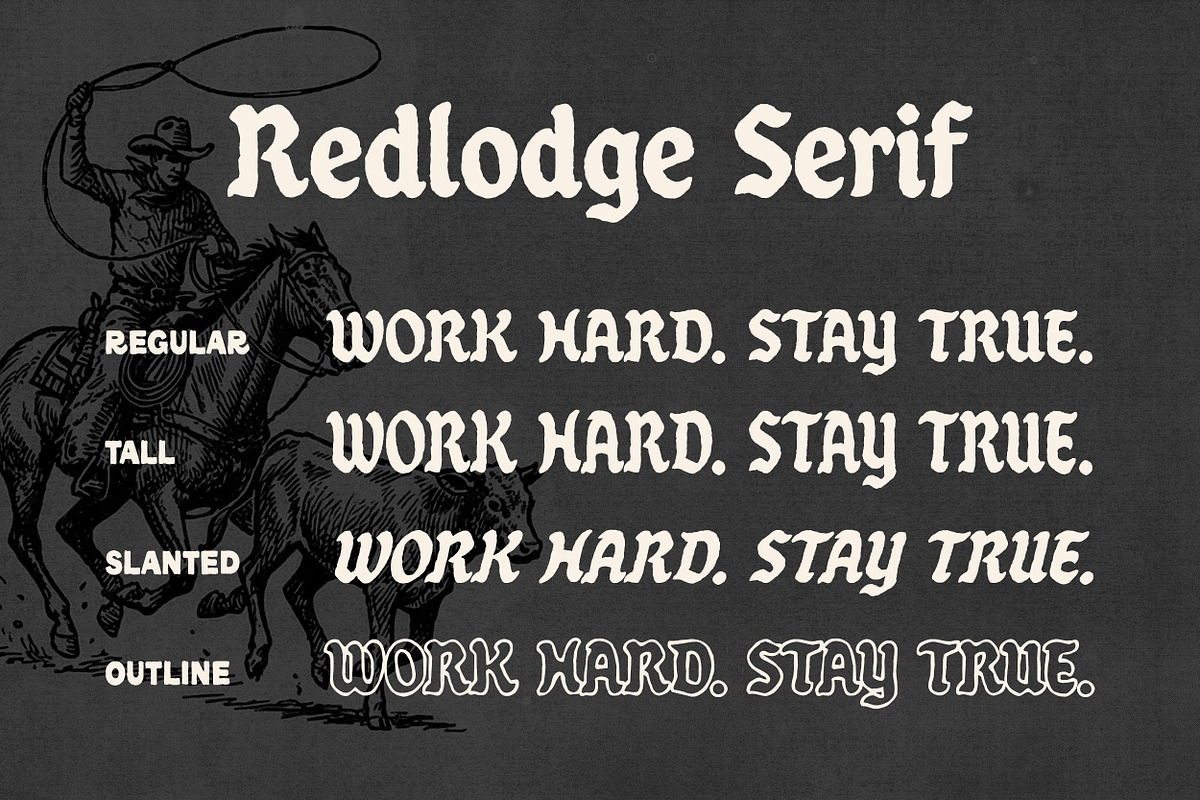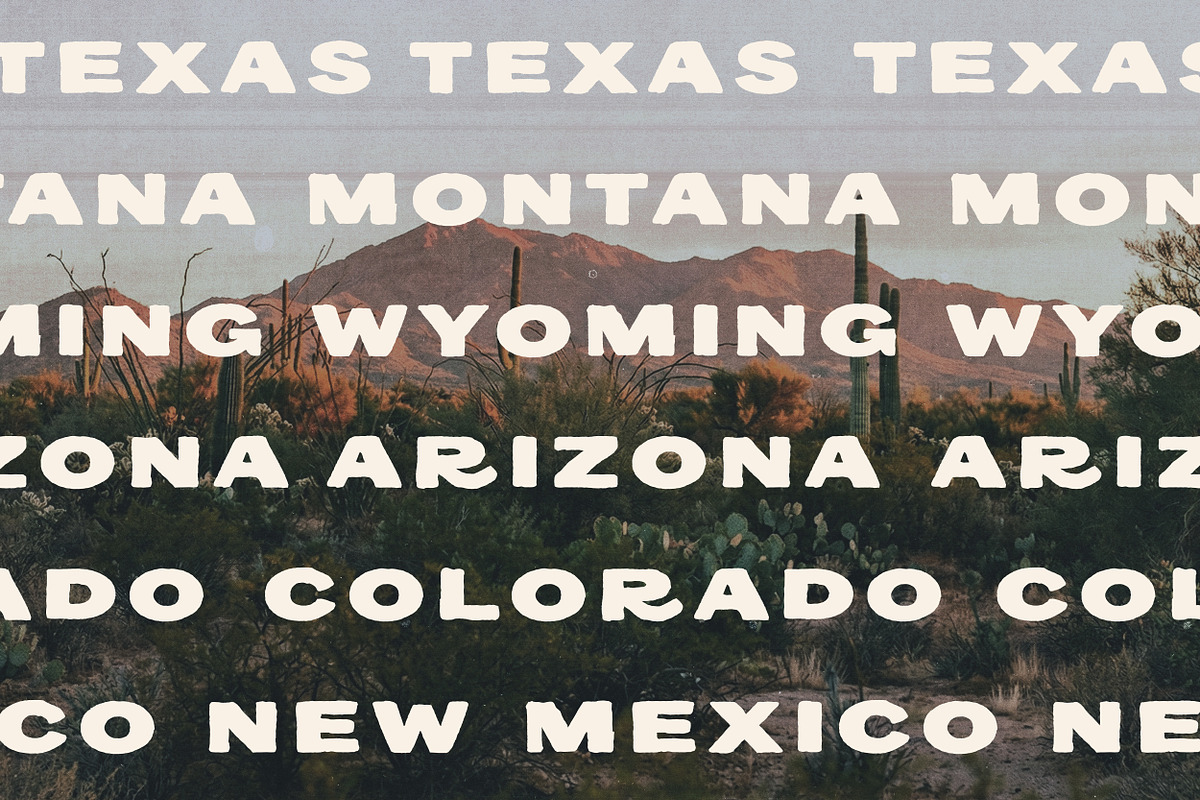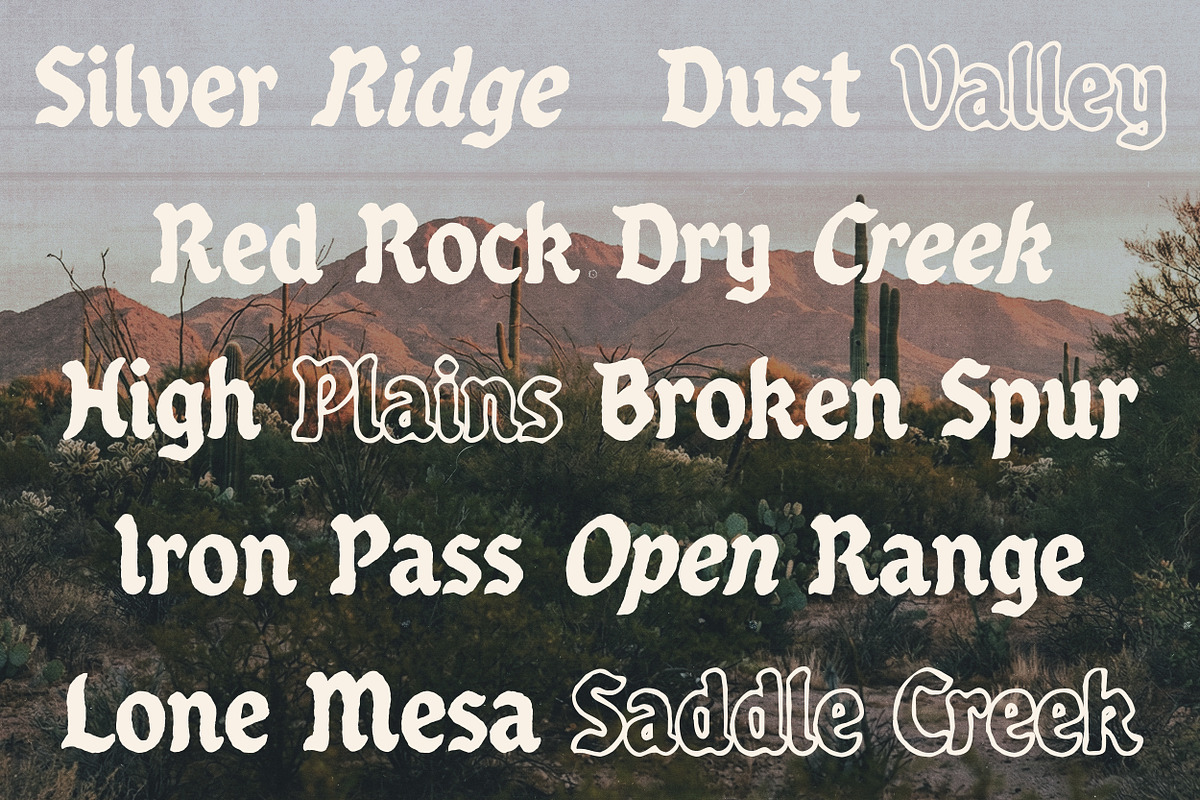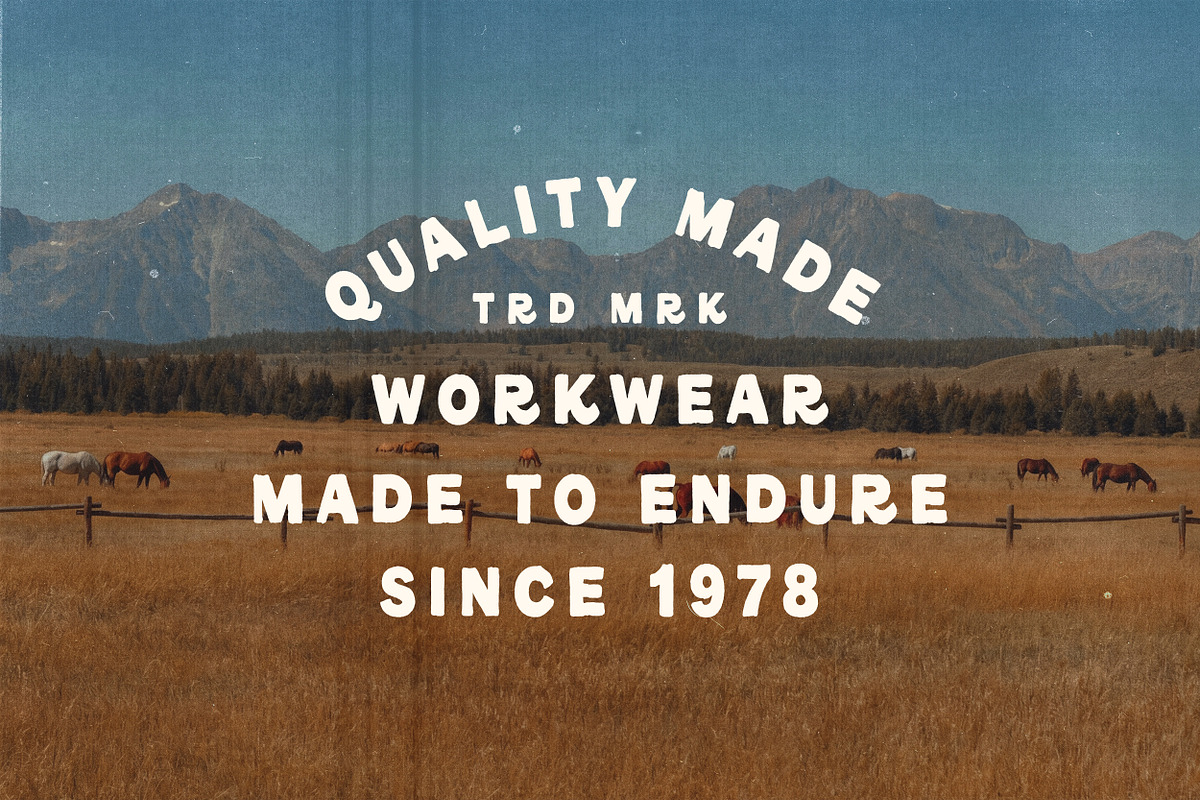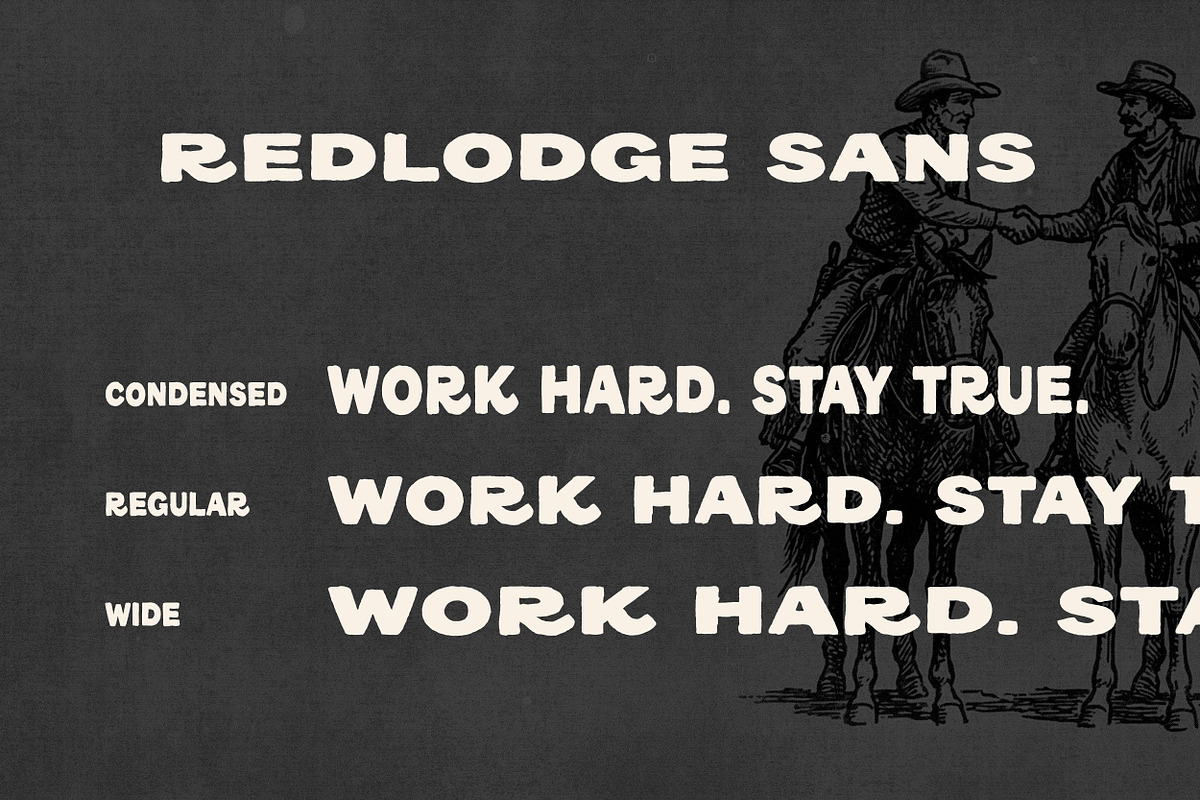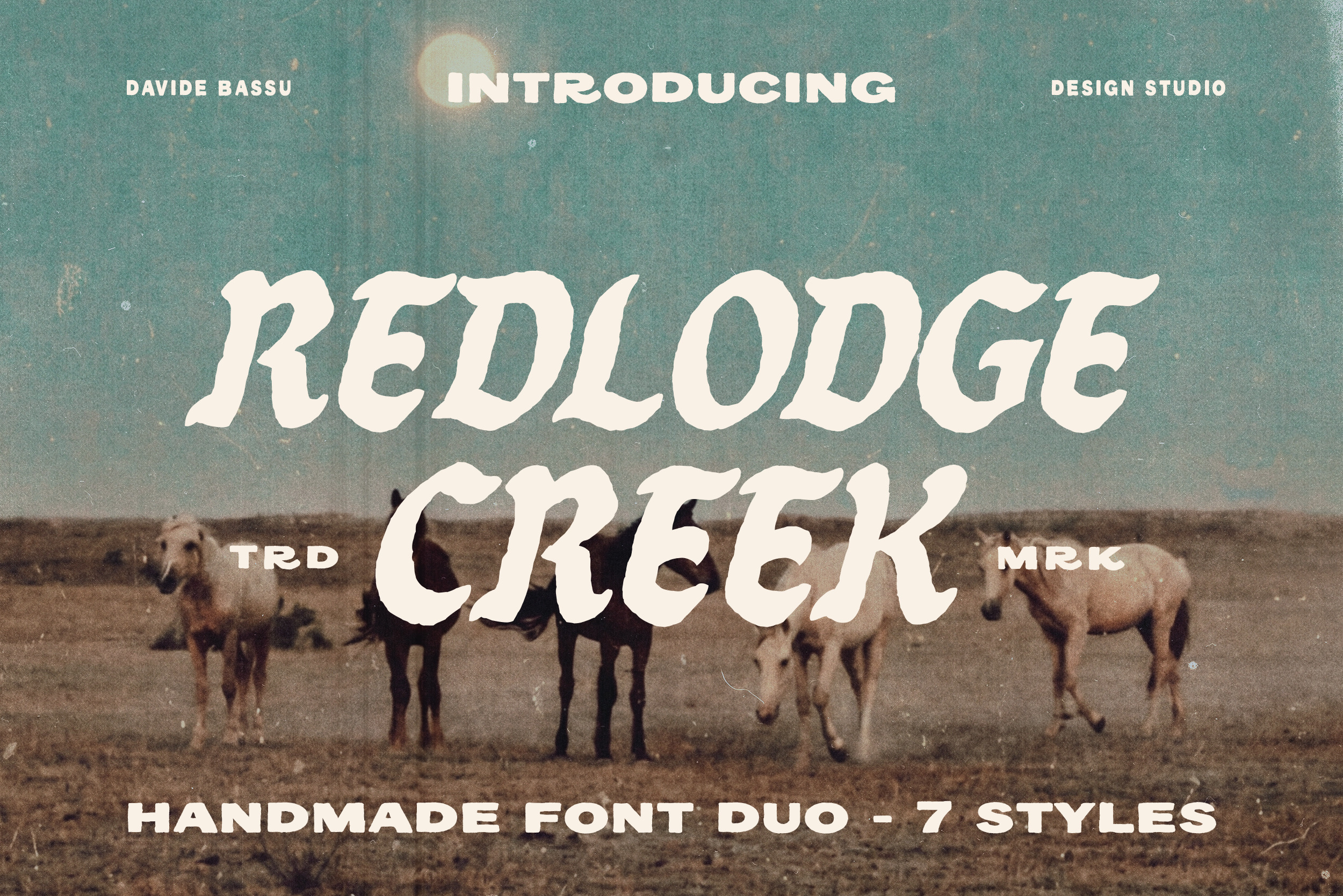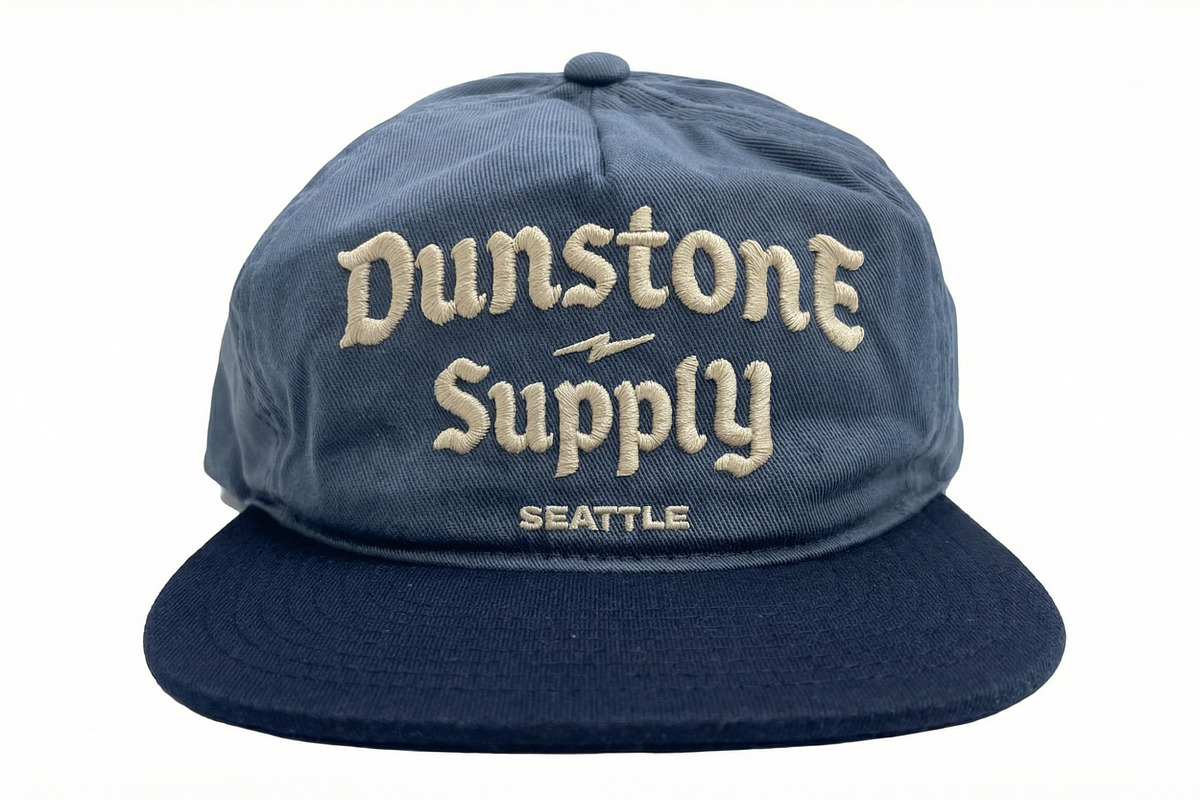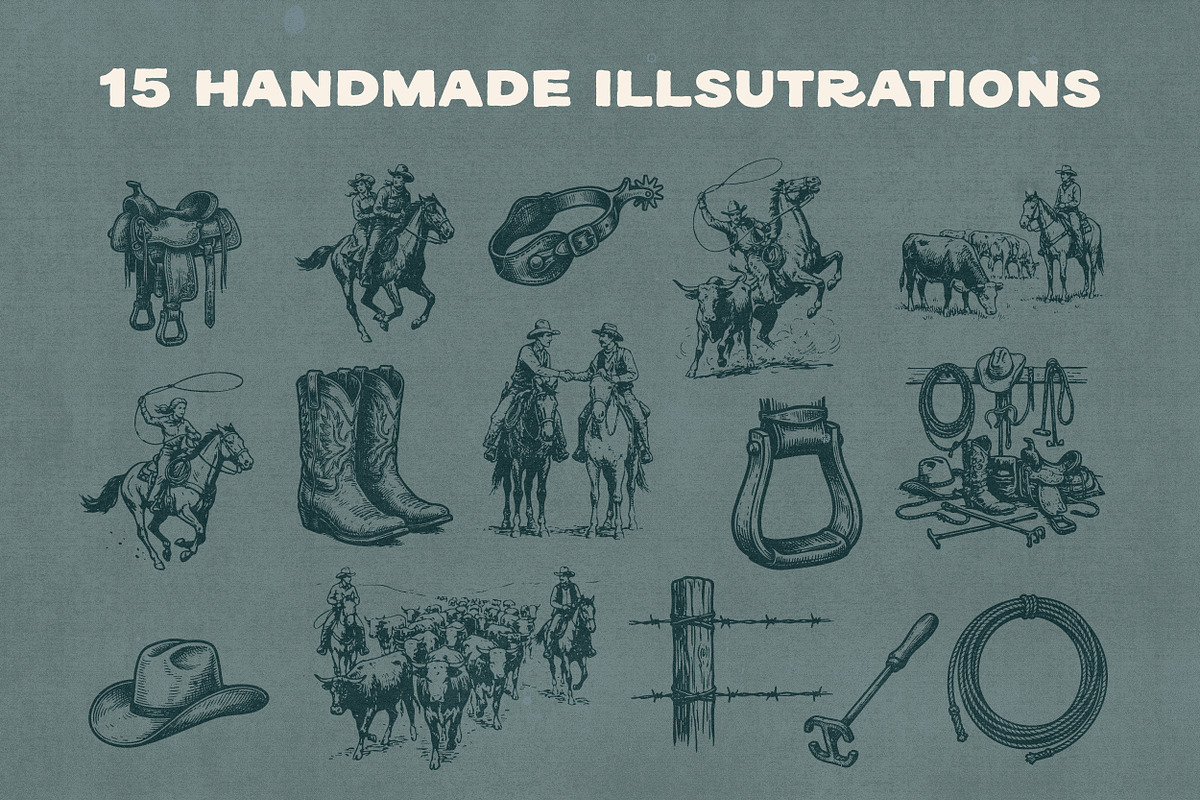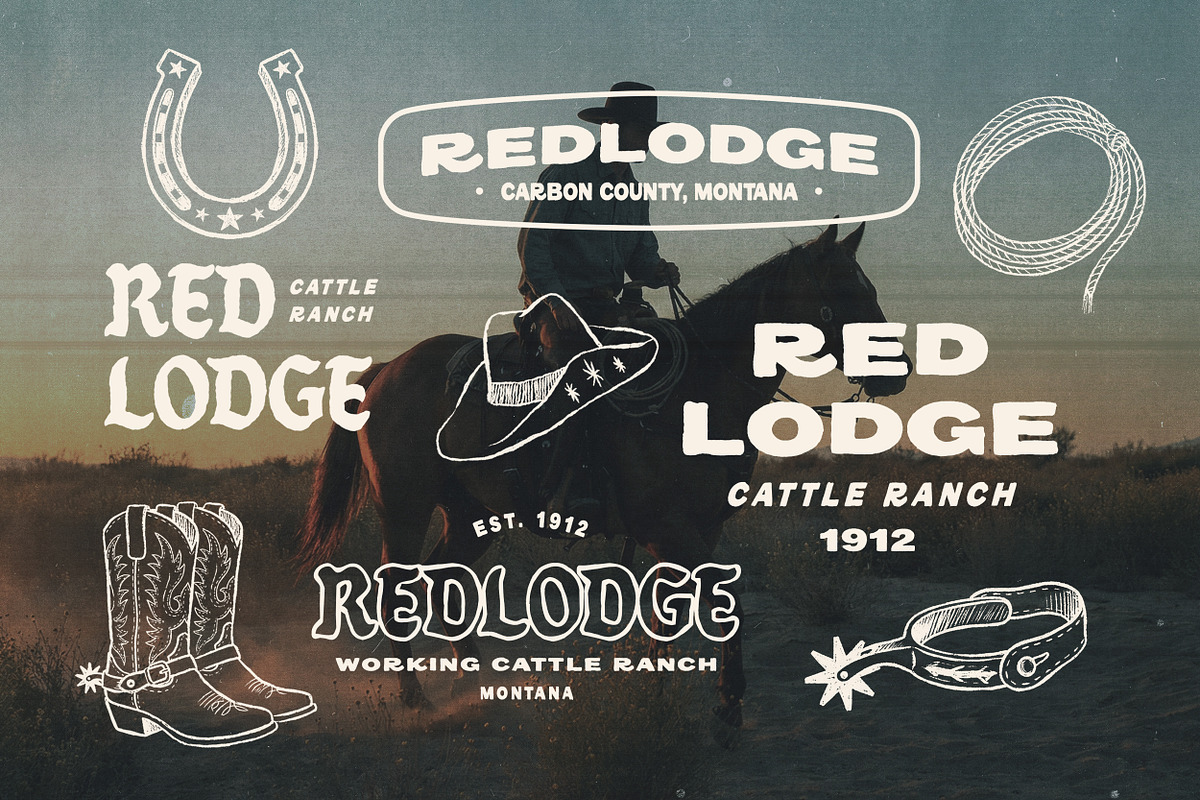
REDLODGE FONT DUO + Extra
REDLODGE FONT DUO is a handmade font duo inspired by authentic American ranch culture, workwear heritage, and Western craftsmanship. Designed to feel bold, rugged, and timeless, this type system is built for strong branding and real-world applications.
The font duo includes a vintage serif and a versatile sans, carefully crafted to work together across logos, apparel graphics, packaging, signage, and editorial layouts. Every character carries an organic, hand-drawn feel while remaining highly readable and professional.
Perfect for • Workwear & heritage brands • Ranch, outdoor & western-inspired projects • Apparel graphics & embroidery • Logos, badges & packaging • Editorials, posters & social media
Features • Display style with strong personality • Vintage western aesthetics with modern usability • Works perfectly for print and digital • Easy to customize and combine